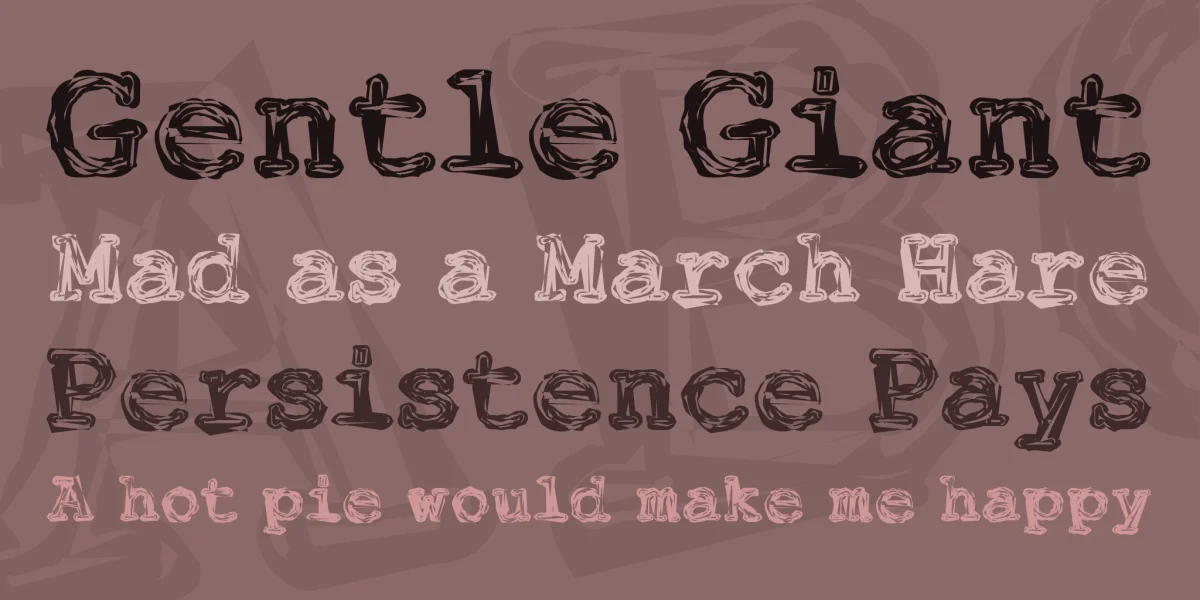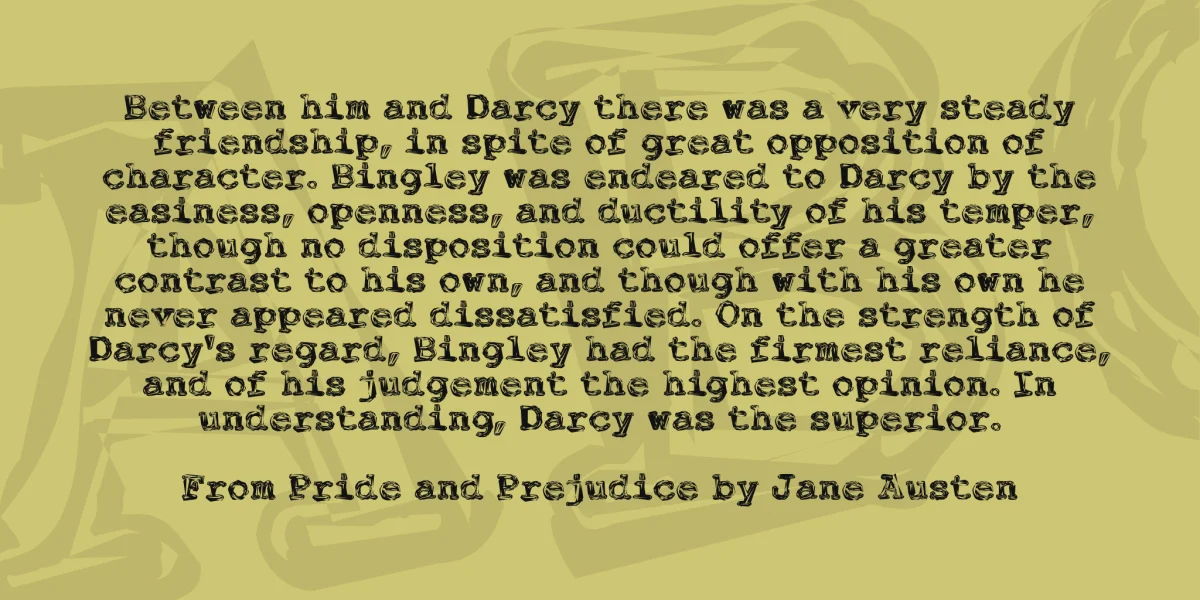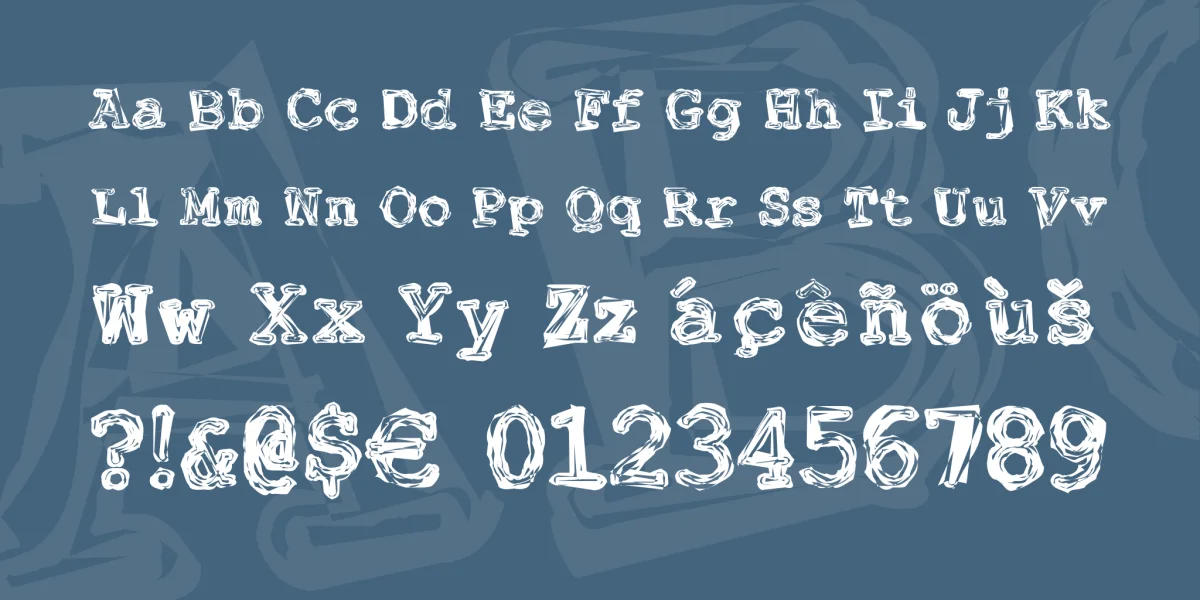
Translation of the original German description: No, this is not a pretty font! It is not supposed to be. Instead, this is my protest against all the praise I read again and again on the Internet on trashy fonts, and how much effort the typographer has put into designing such a wonderful font. Ha! I thought, and so I grabbed my typewriter font and sent it through a couple of more or less random functions of my font-program. Merely 5 minutes later it was finished and needed a just as crappy name... Please donate if you like the font!